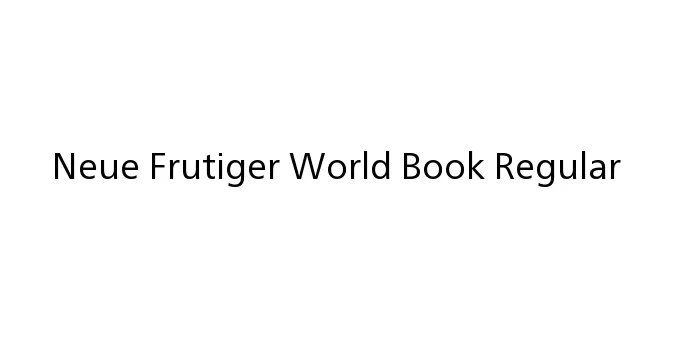
Neue Frutiger World Book Regular
Designed by Adrian Frutiger, Akira Kobayashi
Neue Frutiger World Book Regular is a masterfully crafted expansion of the iconic Frutiger typeface, originally created by Adrian Frutiger in the 1970s. This specific version was developed by Monotype’s Akira Kobayashi to address the needs of a globalized digital landscape. It retains the signature humanist qualities—open apertures, distinct character forms, and a warm, approachable tone—that made the original family a standard for wayfinding and corporate identity worldwide.
The "World" edition significantly extends the font's utility by supporting more than 150 languages, including Greek, Cyrillic, Georgian, Armenian, and Hebrew, ensuring a consistent brand voice across international borders. The Book Regular weight is specifically optimized for text-heavy applications, offering a rhythmic flow and superior legibility that performs exceptionally well in both high-resolution print and on-screen environments.
Neue Frutiger World Book Regular Best Uses
Maintaining a consistent typographic identity across diverse linguistic markets.
Providing clear, instant recognition for signage and navigational systems.
Ensuring readability on mobile apps and desktop software environments.
Establishing a professional and reliable tone for reports and official documentation.